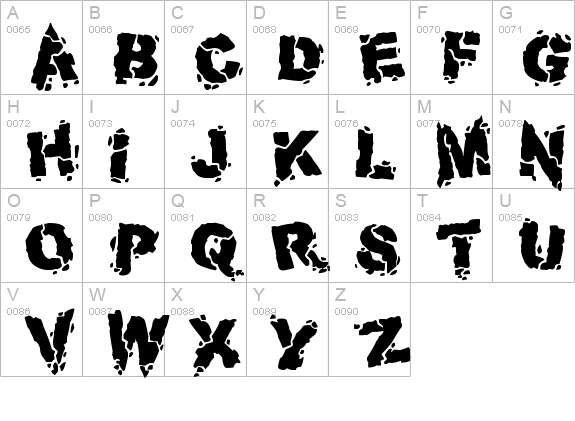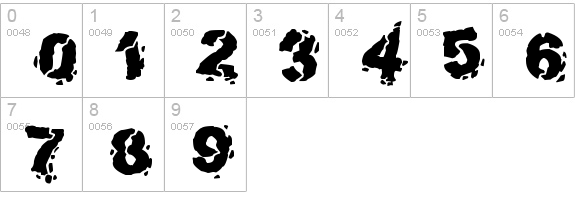
Volcanic Dungeon Font Details
Volcanic Dungeon is a free for personal use font in the Fancy > Comic category, designed by Darrell Flood. It has been downloaded 179 times and is available for Windows, Mac and Linux.
Introducing Volcanic Dungeon font - a captivating typeface inspired by the raw power and intense beauty of volcanic eruptions. This font exudes a sense of mystery and danger, with its rugged edges and fiery letterforms. Each character seems to crackle with molten energy, ready to explode off the page.
The Volcanic Dungeon font is perfect for projects that require a touch of drama and excitement. Whether you're creating posters for a music festival, designing book covers for thrilling adventures, or crafting branding for an edgy new clothing line, this font will add a powerful and dynamic element to your designs.